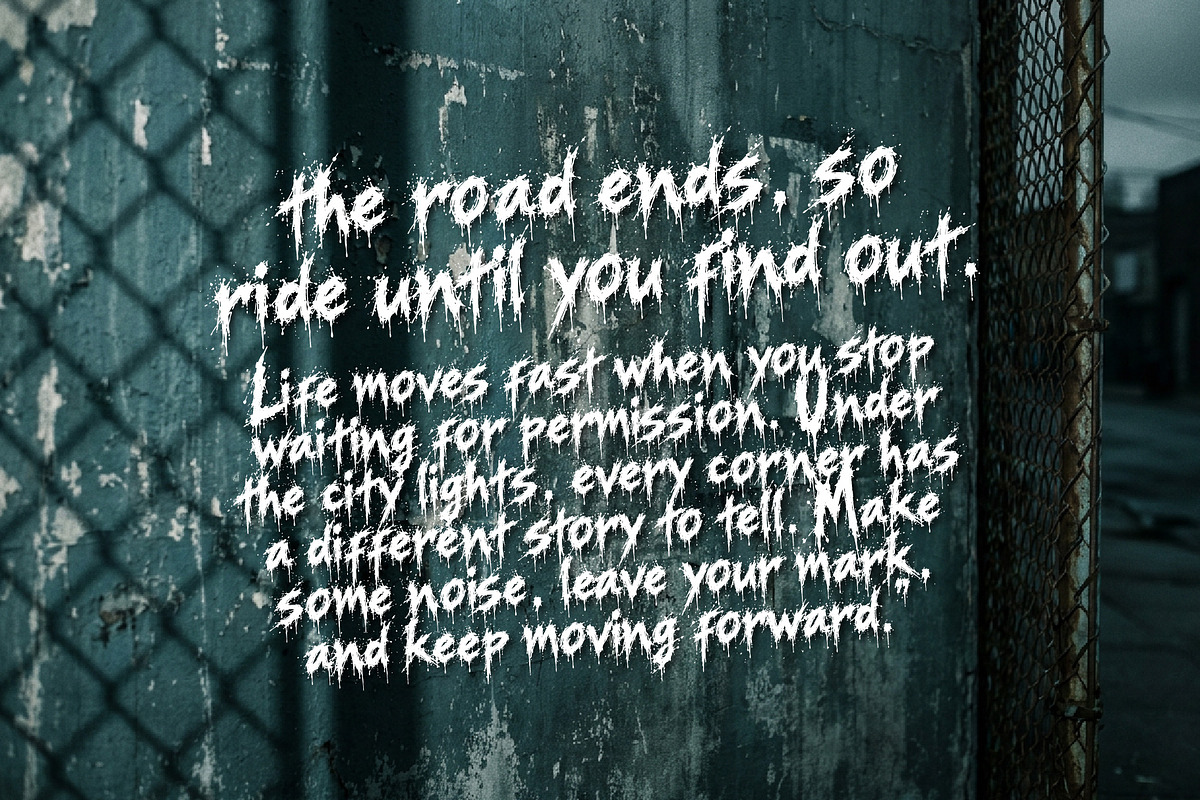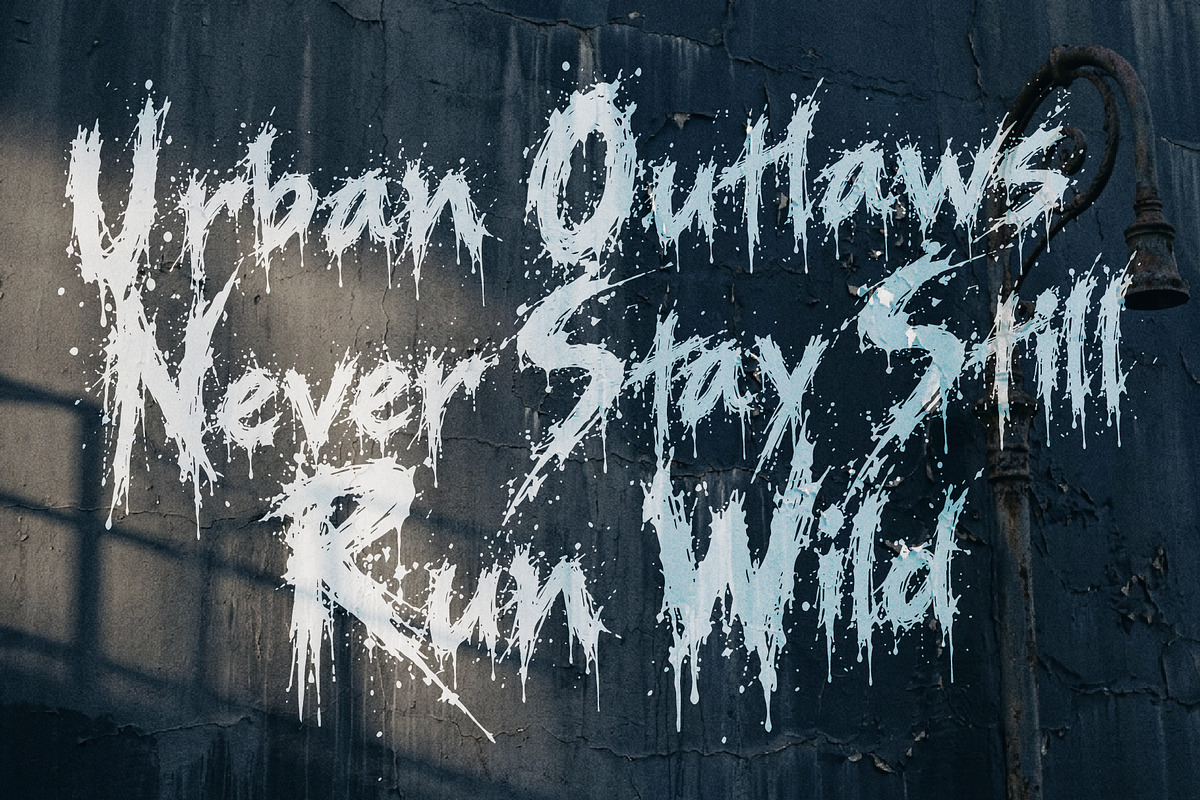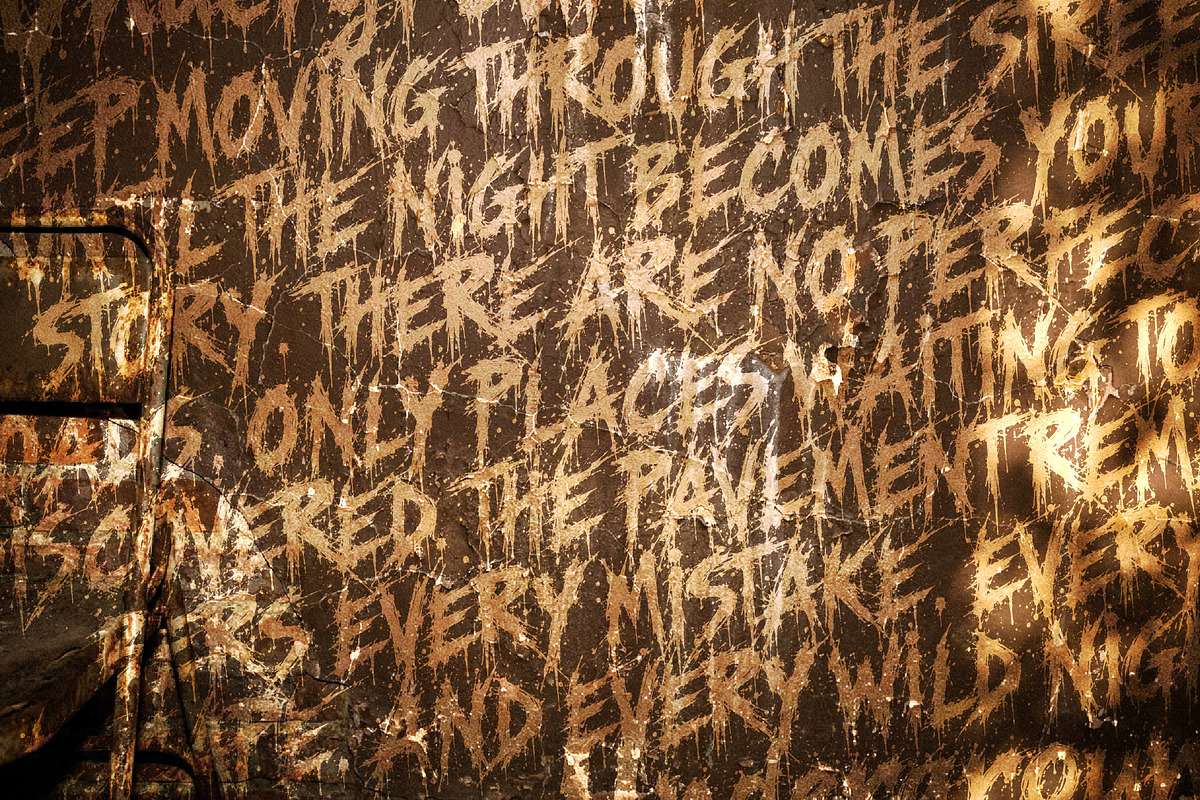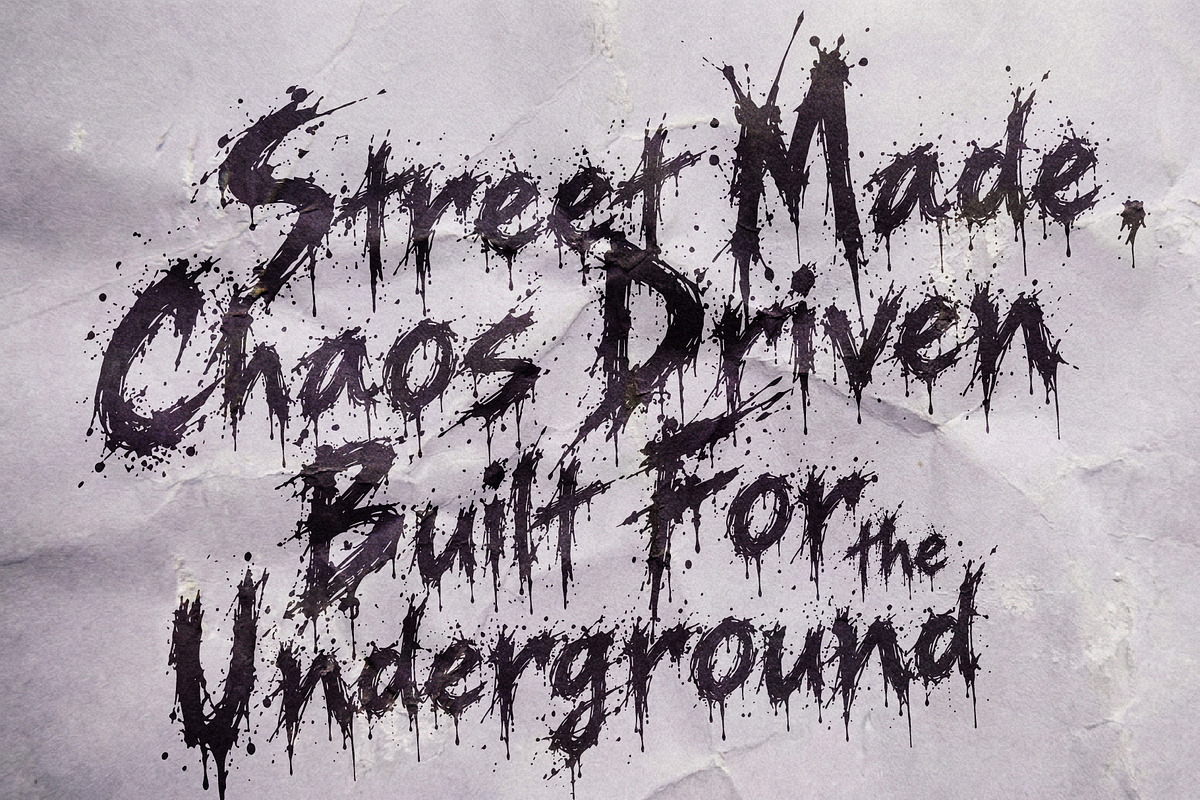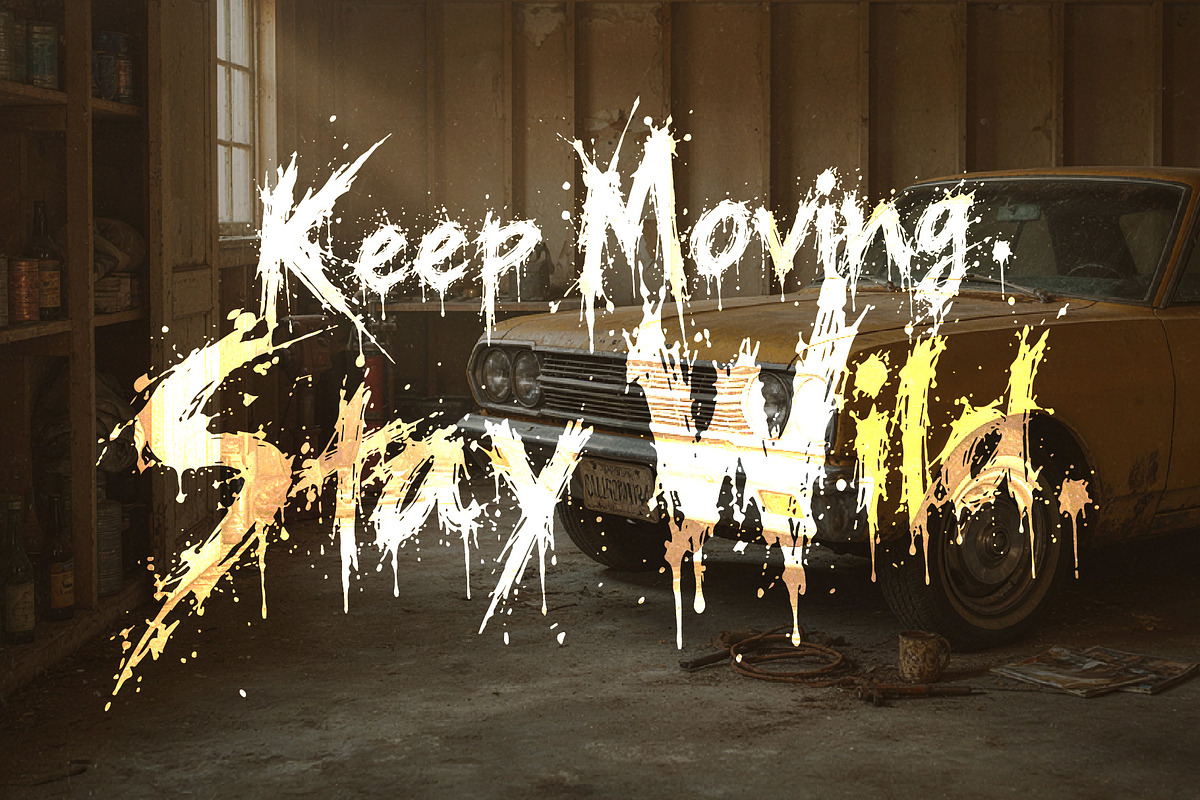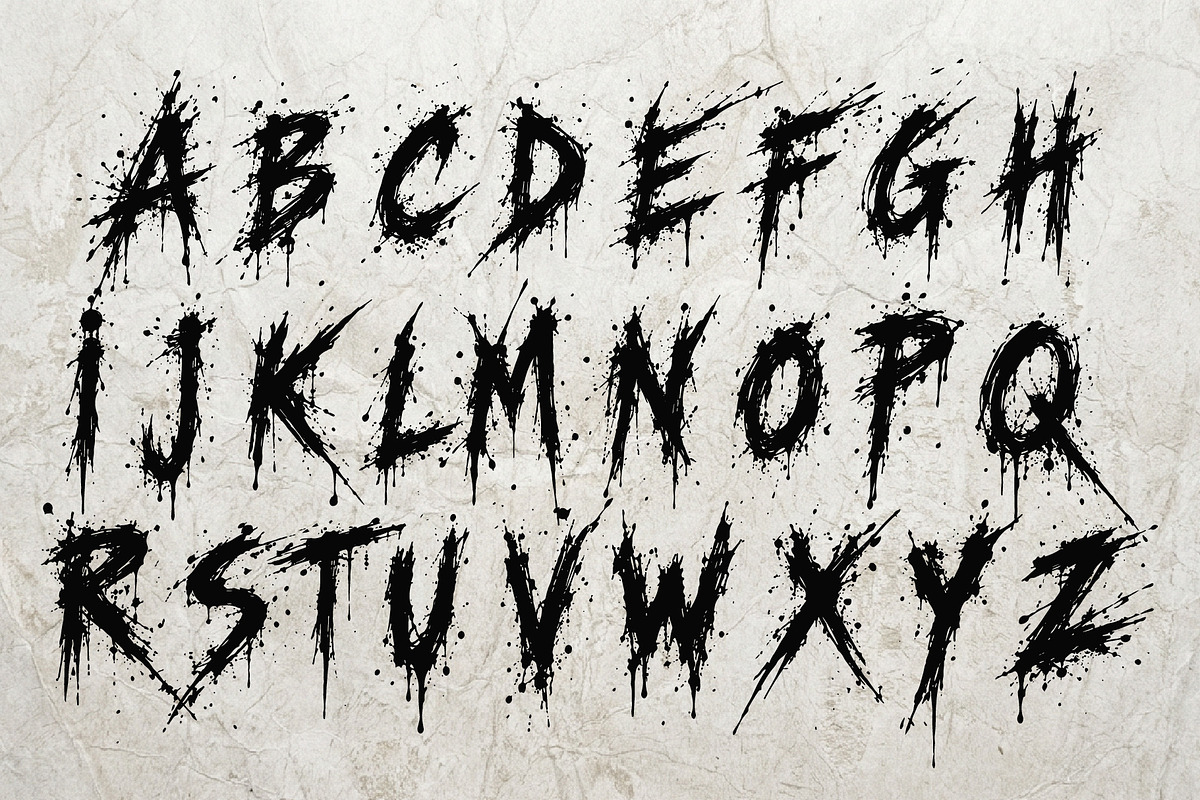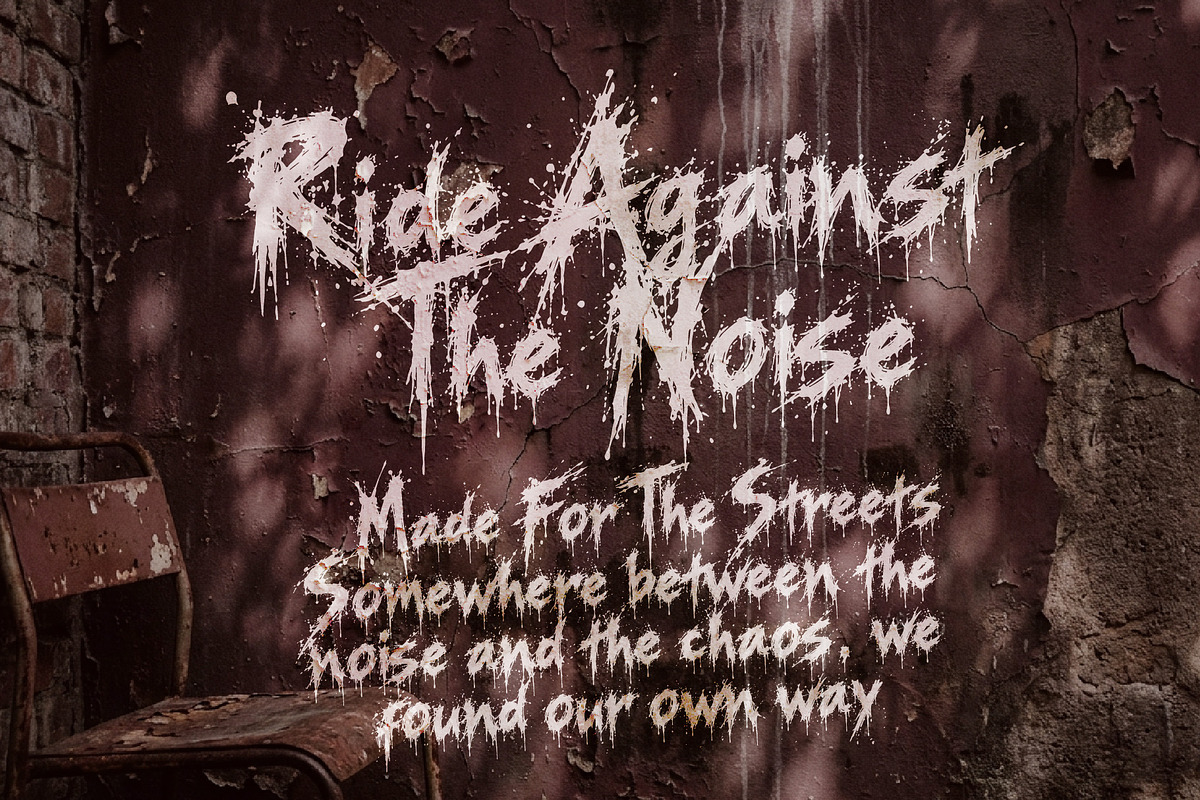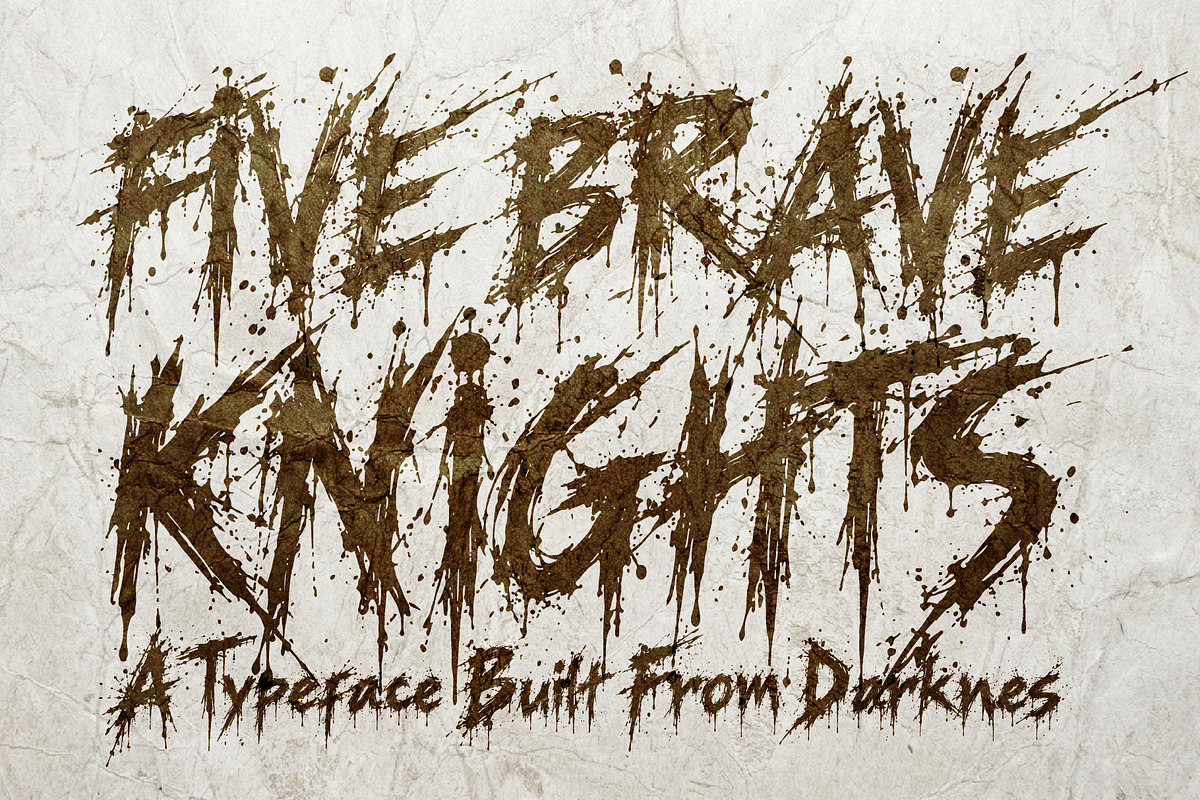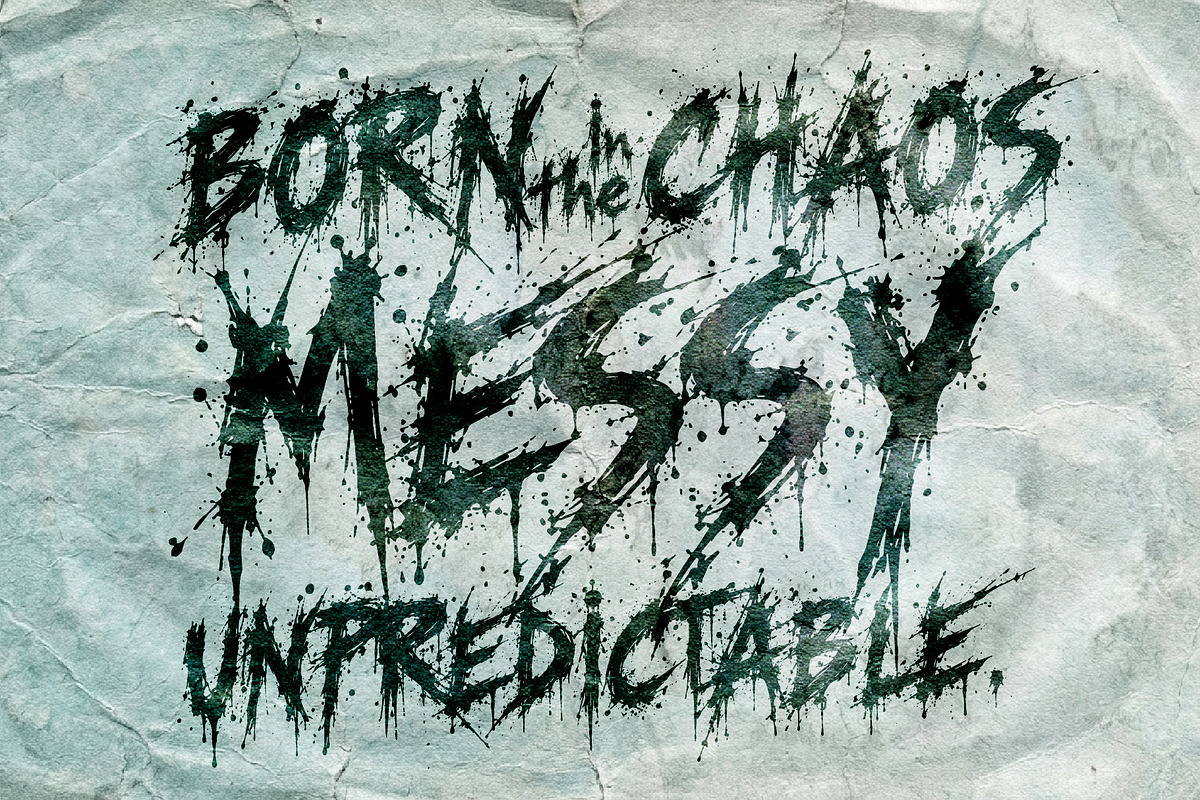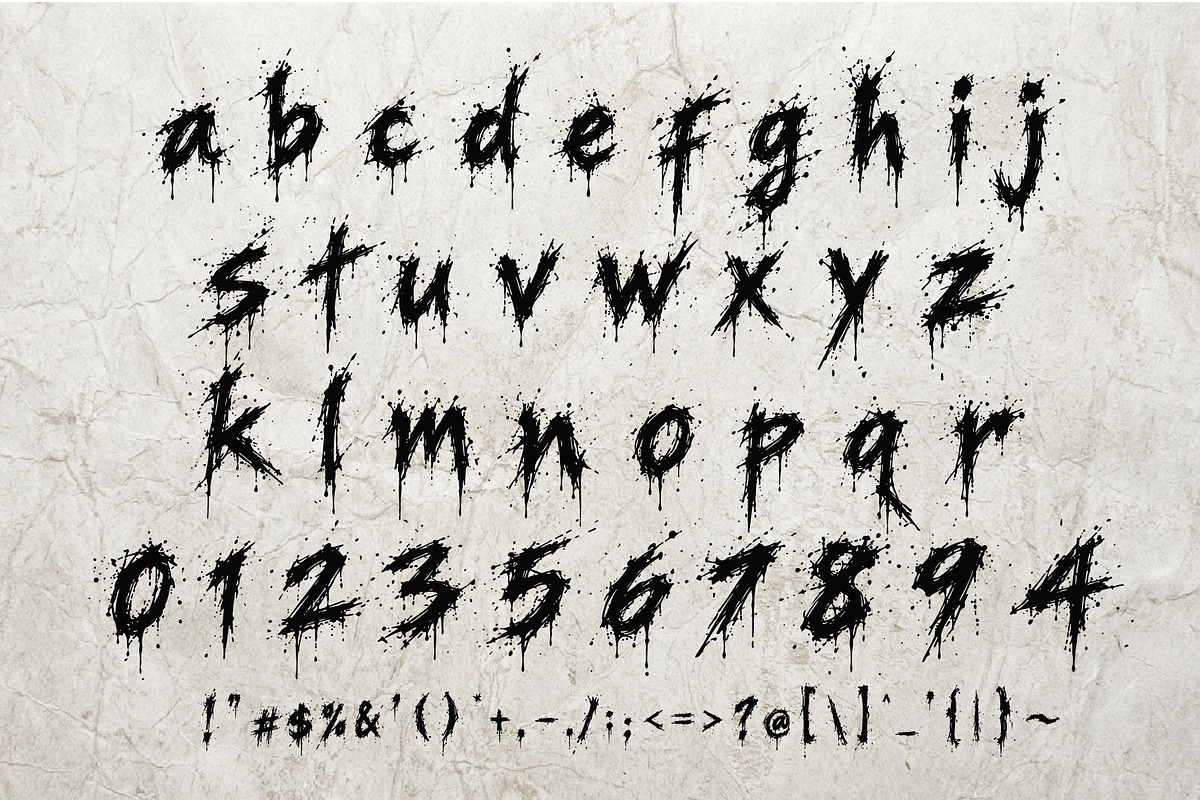
Five Brave Knights - Darknes & Chaos
Five Brave Knights is a raw action grunge font with the chaotic energy of the streets. Built with rough brush strokes, sharp slash details, and an imperfect handmade texture, it brings a rebellious attitude to every word.
Its messy edges and energetic forms capture the feeling of urban movement from crowded streets and underground scenes to skate culture, racing, music, graffiti, and late night city adventures. The style feels spontaneous, aggressive, and unpolished in the best way, giving your typography a strong street driven character.
Perfect for streetwear, urban posters, action graphics, skateboards, racing artwork, music covers, underground events, graffiti-inspired designs, gaming, sports graphics, and bold merchandise. Five Brave Knights is made for designs that need movement, attitude, chaos, and a little bit of danger.